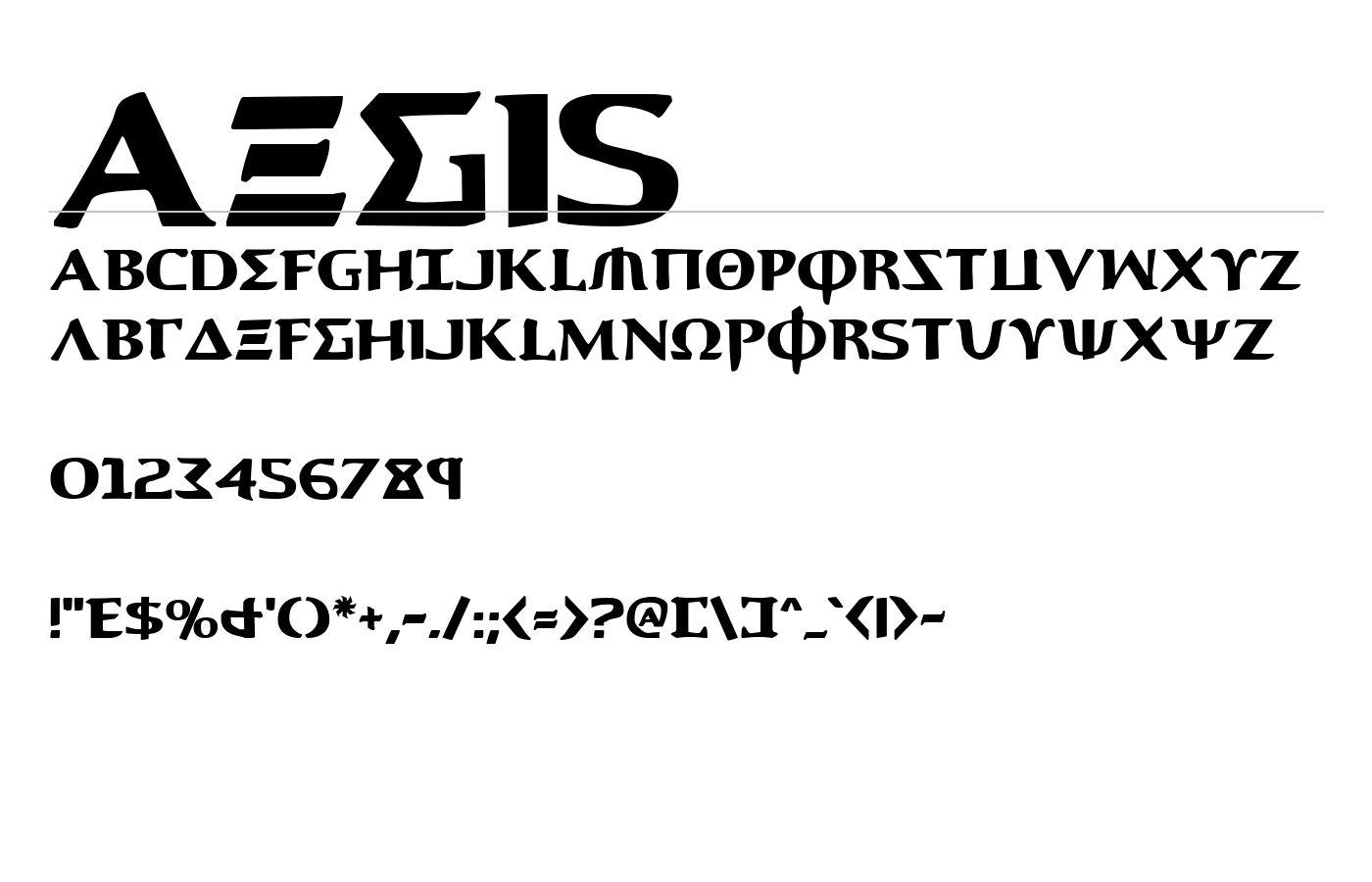
Aegis is a bold, serif typeface with a strong, geometric influence and an angular, slightly archaic feel, drawing inspiration from ancient Greek letterforms. It features sharp, bracketed serifs, moderate contrast, and unique character details that give it a distinctive, historic yet modern personality. Ideal for headlines, logos, and branding, Aegis evokes strength and reliability, making it perfect for projects seeking a timeless, classical aesthetic with a contemporary edge.